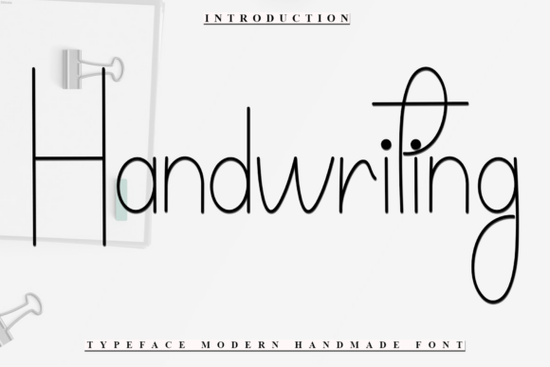
If you're looking for a font that blends human warmth with sharp, modern precision, the Handwriting Font might be exactly what your next project needs. Unlike traditional script fonts that rely on dramatic thick-and-thin strokes, this typeface uses a consistent ultra-thin line what designers call a “monoline” weight to create a clean, architectural look. It’s not meant for body text or long paragraphs; instead, it shines in logos, short headlines, signature-style branding, and minimalist design work where every curve and angle can be appreciated up close.
When should you use this Handwriting font?
This font works best when you want to convey sophistication without ornamentation. Think high-end tech startups, fashion labels with a pared-down aesthetic, or architectural portfolios that value clarity and form. Because of its delicate lines, it’s essential to give it room to breathe pair it with generous tracking (letter spacing) to let the geometry of each character stand out. On crowded layouts or at small sizes, the thin strokes can disappear, so reserve it for display purposes only.
It’s classified as a Sans-Serif Display Font, which means it’s designed for visual impact rather than readability in dense text. That makes it perfect for:
- Logo design
- Product packaging labels
- Social media headers
- Wedding monograms or event signage (though for full wedding suites, you might prefer something like the elegant wedding font for more flourish)
- Craft projects like vinyl cutting or laser engraving where fine lines are supported
How does it compare to other script fonts?
Most handwriting-style fonts lean into organic variation like the gentle bounce of Sweet Casual or the cozy charm of Mistletoe Cottage. Those are great for greeting cards, rustic branding, or anything that feels personal and approachable. In contrast, this Handwriting Font strips away all that texture in favor of control and consistency. It’s more like a blueprint than a love letter.
If you’re used to expressive scripts like Thickloved Duo, which plays with bold contrasts and romantic swashes, this font will feel almost clinical by comparison but that’s the point. Its appeal lies in restraint. Similarly, while Curvsive Tracing mimics the look of guided penmanship, this font feels deliberately engineered, not hand-practiced.
Technical details and compatibility
Just remember: because of its ultra-thin strokes, always test how it prints or displays on your intended medium. Some printers or low-resolution screens may not render the finest lines clearly. For physical products, consider slightly increasing the stroke weight in post-processing if your software allows it or use it only at larger sizes.
Who is this font really for?
This isn’t a beginner’s “go-to script.” It’s for creators who already understand typography basics and want a tool that supports a specific aesthetic: minimal, intentional, and quietly confident. If your brand voice is “less is more,” and your visuals avoid clutter, this font can become a subtle signature element.
Small business owners building a luxury skincare line, indie tech founders crafting app interfaces, or stationery designers working on modern wedding suites all could find value here, as long as they respect its limitations.
- Use it large: Best viewed at 24pt or bigger.
- Avoid dark backgrounds: Thin white text on black can vanish; test contrast carefully.
- Pair wisely: Combine with a neutral sans-serif (like Helvetica or Inter) for balance.